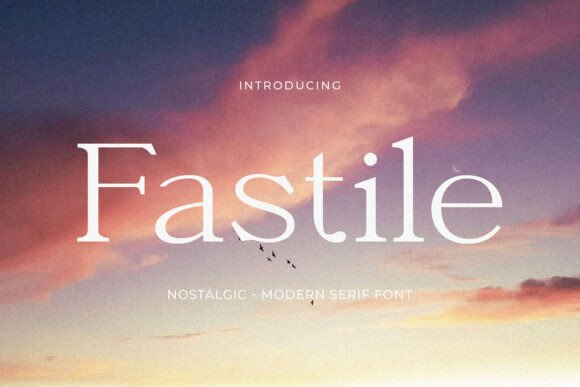
Introducing Fastile Font: A Timeless Serif Font for Stunning Designs
In the world of typography, fonts play a crucial role in conveying messages, expressing emotions, and creating visual identities. Among the numerous fonts available, Fastile Font stands out as a lovely and timeless serif font that has gained popularity for its unique and beautiful touch. In this article, we’ll explore the features, benefits, and uses of Fastile Font, and why it’s an excellent choice for creating eye-catching logos, branding, and quotes.
What Makes Fastile Font Special?
Fastile Font boasts a distinctive serif design that exudes elegance, sophistication, and warmth. Every letter has a unique and beautiful touch, which sets it apart from other fonts. The font’s classic and timeless feel makes it suitable for a wide range of design projects, from traditional to modern applications.
- Unique Letterforms: Each letter in Fastile Font has a distinct character, making it perfect for creating visually appealing text.
- Timeless Design: The font’s serif design ensures that it remains relevant and stylish, even as design trends evolve.
- Elegant and Sophisticated: Fastile Font adds a touch of luxury and refinement to any design project.
Perfect for Logos, Branding, and Quotes
Fastile Font is an excellent choice for creating stunning logos, branding, and quotes due to its exceptional design and versatility. Here are some reasons why:
- Logo Design: Fastile Font’s unique letterforms and classic design make it ideal for creating memorable and impactful logos.
- Branding: The font’s elegant and sophisticated feel ensures that your brand’s visual identity is conveyed consistently across all platforms.
- Quotes: Fastile Font adds a touch of luxury and sophistication to quotes, making them perfect for social media, advertising, and marketing materials.
Example Use Cases:
- Create a stunning logo for a luxury brand, such as a high-end fashion label or a premium food product.
- Develop a consistent brand identity for a business, including business cards, letterheads, and website typography.
- Design eye-catching quotes for social media, blogs, or advertising campaigns.
The Benefits of Using Fastile Font
Using Fastile Font offers numerous benefits, including:
- Improved Readability: The font’s clear and classic design ensures that text is easy to read and understand.
- Enhanced Visual Appeal: Fastile Font adds a touch of elegance and sophistication to any design project.
- Versatility: The font is suitable for a wide range of design applications, from traditional to modern projects.
- Time-Saving: With Fastile Font, you can create stunning designs quickly and efficiently, saving you time and effort.
Tips for Using Fastile Font Effectively
To get the most out of Fastile Font, follow these tips:
- Pair with Other Fonts: Combine Fastile Font with other fonts to create visually appealing and harmonious designs.
- Experiment with Colors: Try different color schemes to find the perfect combination that complements your design.
- Pay Attention to Kerning: Adjust the kerning to ensure that the text is evenly spaced and visually appealing.
- Use it Consistently: Use Fastile Font consistently across all design materials to create a cohesive visual identity.
Fastile Font is a timeless serif font that offers a unique and beautiful touch to any design project. Its elegant and sophisticated design makes it perfect for creating eye-catching logos, branding, and quotes. With its versatility, readability, and visual appeal, Fastile Font is an excellent choice for designers, marketers, and businesses looking to create stunning designs. By following the tips outlined in this article, you can unlock the full potential of Fastile Font and take your designs to the next level.